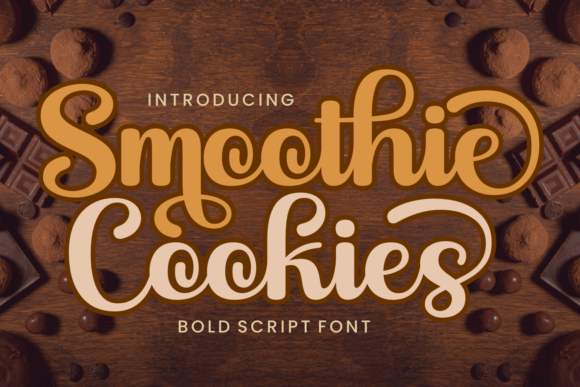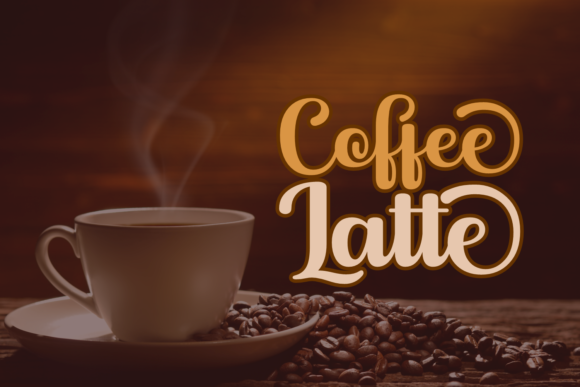
Smoothie Cookies Font
About Smoothie Cookies Font
Smoothie Cookies is a distinctive bold script font that exudes a retro charm, making it an excellent choice for a variety of design applications. This font seamlessly blends a bold and eye-catching style with a nostalgic feel, making it particularly well-suited for ads, posters, magazines, food and drinks menus, labels, tags, quotes, covers, branding, and logos.
The bold and dynamic nature of Smoothie Cookies makes it stand out in advertising materials, catching the viewer’s attention and conveying a sense of energy and excitement. Whether used in print ads, digital promotions, or posters, this font adds a bold and memorable touch to your visual communication.
In magazine layouts, Smoothie Cookies injects a playful yet sophisticated vibe, making headlines and featured text elements visually engaging. Its retro aesthetic works well in evoking a sense of nostalgia or adding a vintage flair to the overall design.
Smoothie Cookies proves to be an excellent choice for food and drinks menus, where its bold strokes enhance the presentation of items and contribute to a visually appealing layout. Labels and tags benefit from the font’s bold script, creating a strong and memorable identity for products.
Quotes, covers, and branding materials are elevated by the unique style of Smoothie Cookies. Its bold and retro script adds character and personality to these elements, helping to create a distinctive and memorable brand image.
Logos crafted with Smoothie Cookies convey a bold and expressive identity, making it a great choice for businesses and projects that seek to stand out in a visually competitive landscape.
In summary, Smoothie Cookies is a versatile and bold script font that brings a retro advertising flair to a wide range of design projects, including ads, posters, magazines, menus, labels, tags, quotes, covers, branding, and logos. Its unique style adds character and impact, making it a valuable asset for designers looking to create visually striking and memorable content.